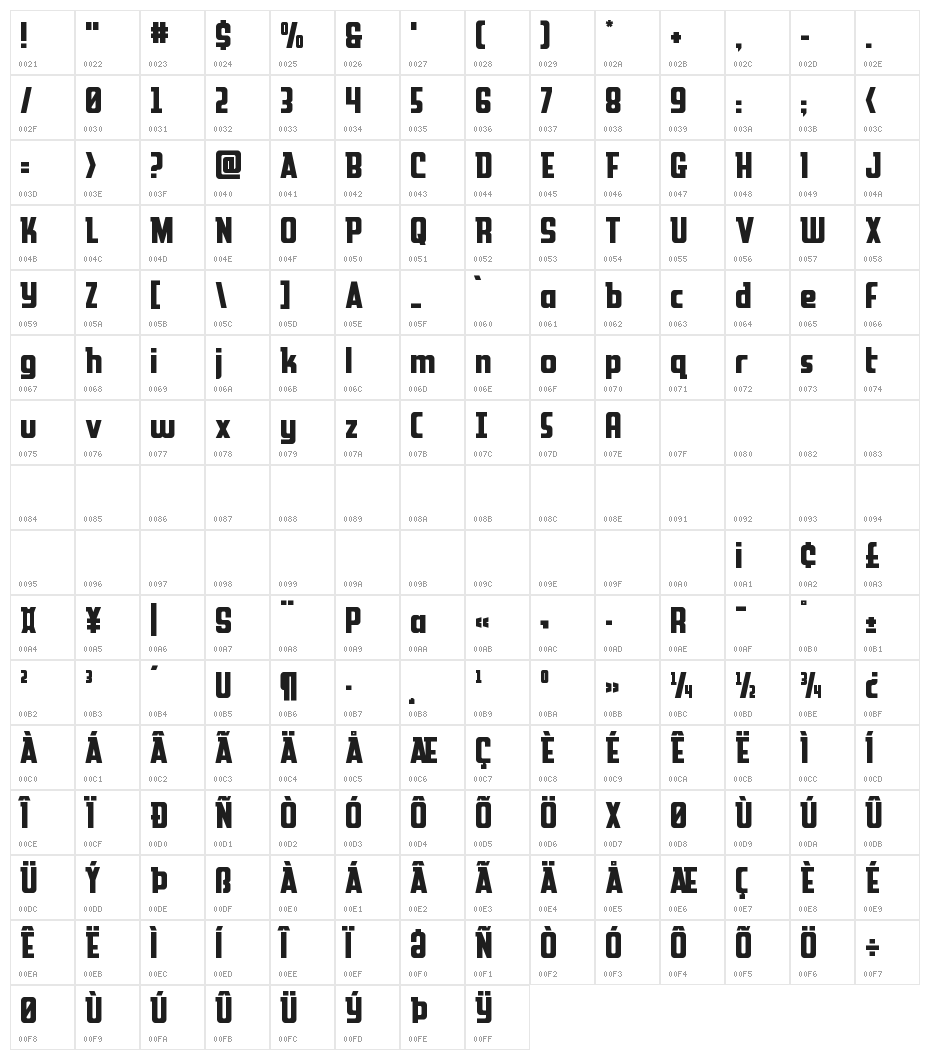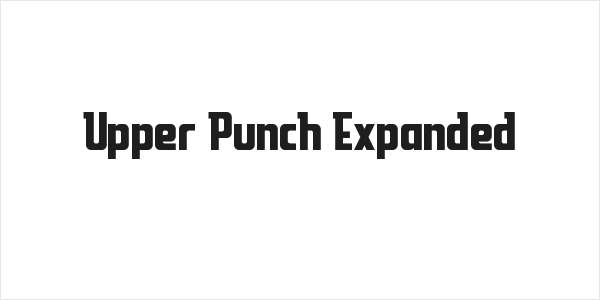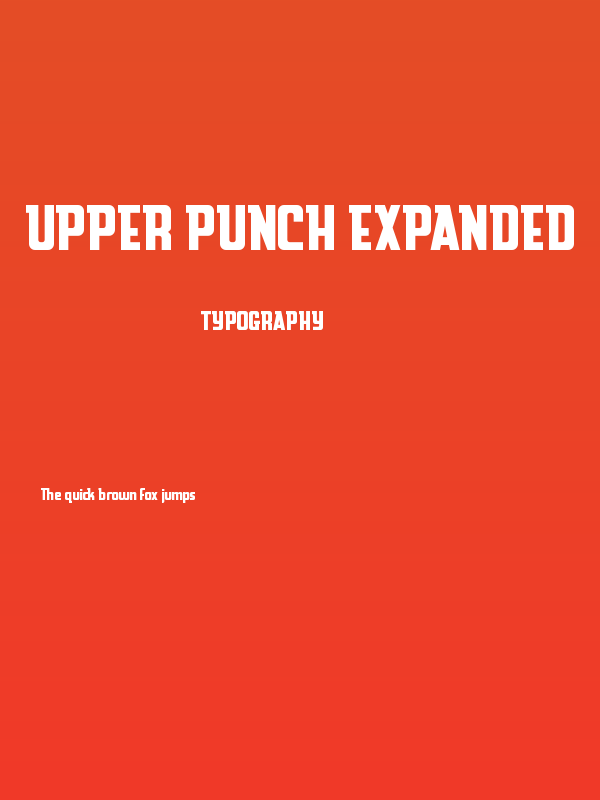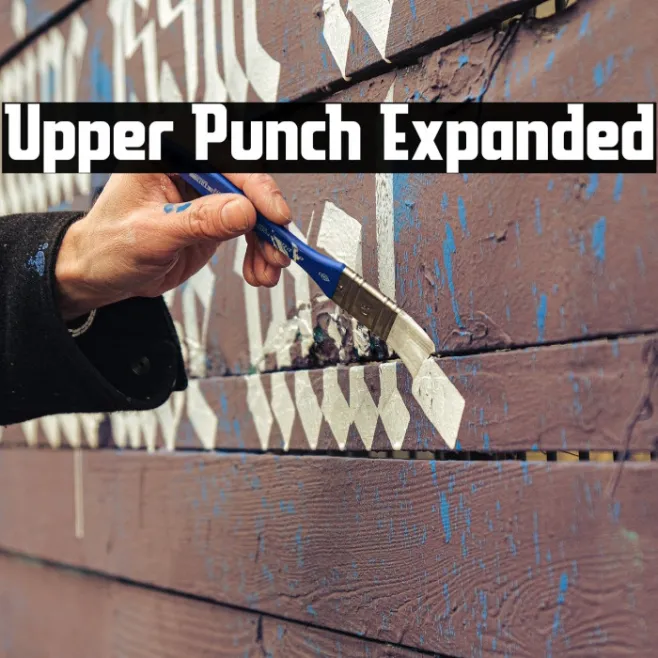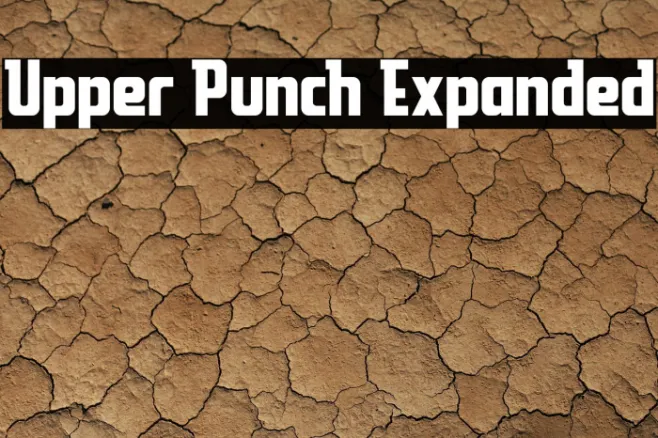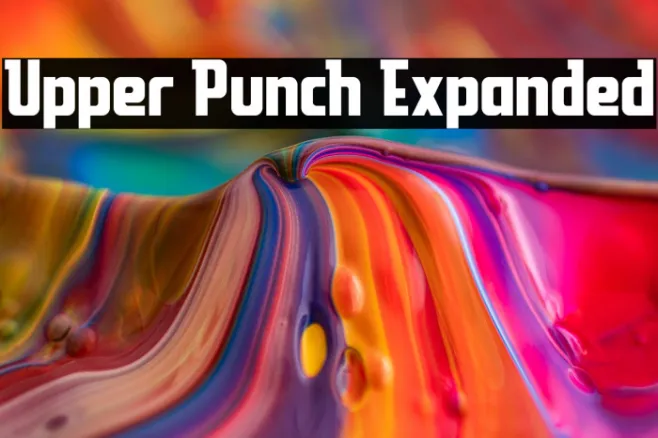
Upper Punch Expanded Font
Upper Punch Expanded Description
This font features a bold and impactful design with expanded letterforms that convey strength and presence. The characters are uniformly wide, creating a sense of stability and confidence. The uppercase letters are particularly striking, with their strong vertical and horizontal lines. The lowercase letters maintain a consistent style, ensuring readability while retaining the bold aesthetic. Numbers and special characters are designed to match the overall robust and expanded style, making them suitable for attention-grabbing headlines or titles. The font's design is modern yet timeless, making it versatile for various applications.
| Proposed Projects | Ideal for posters, headlines, branding, and any project requiring a strong visual impact. |